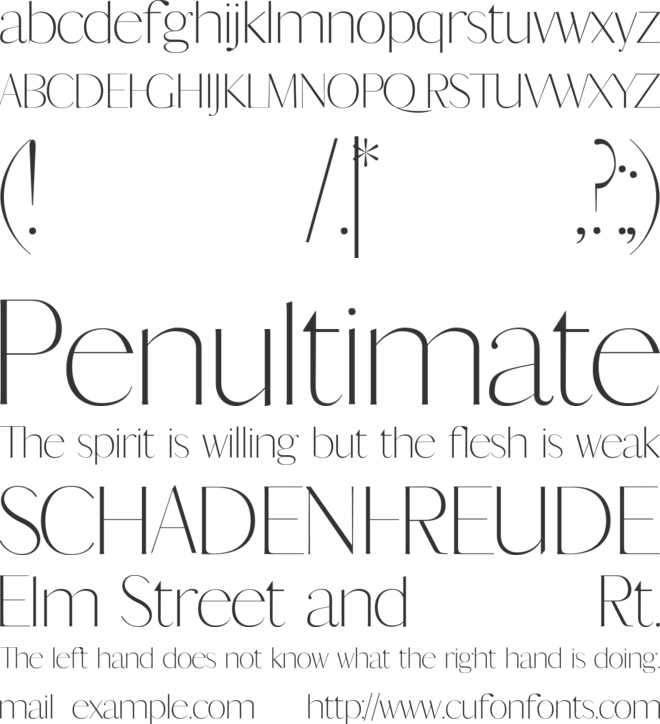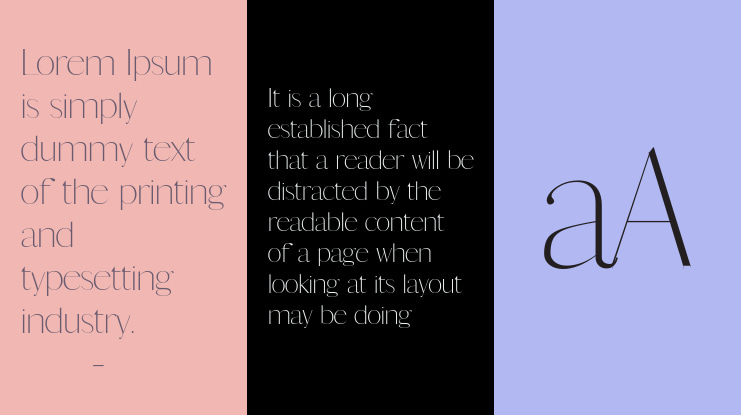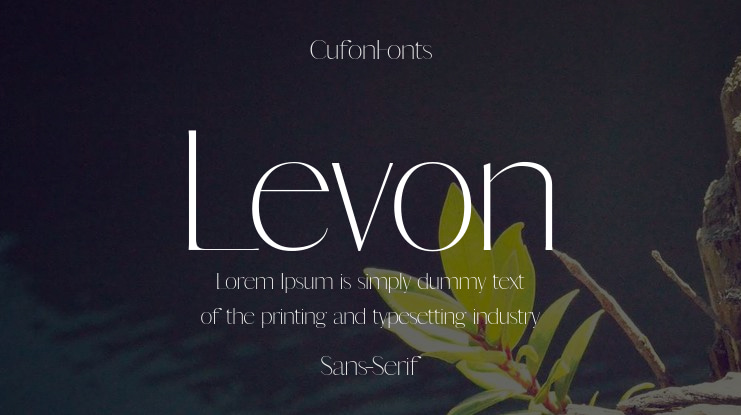
Levon Font Family
🎨 Font Name: Levon by Minimalist Art Studio
🎨 Font Description: Levon is a minimalist sans serif with over 500 glyphs, blending artistic clarity and modern elegance for refined visual storytelling.
βœ” Complete Latin set + multilingual diacritics
βœ” Alternates, stylistic sets & ligatures
βœ” Numbers, small caps, and extended punctuation
βœ” Bonus italics and family styles